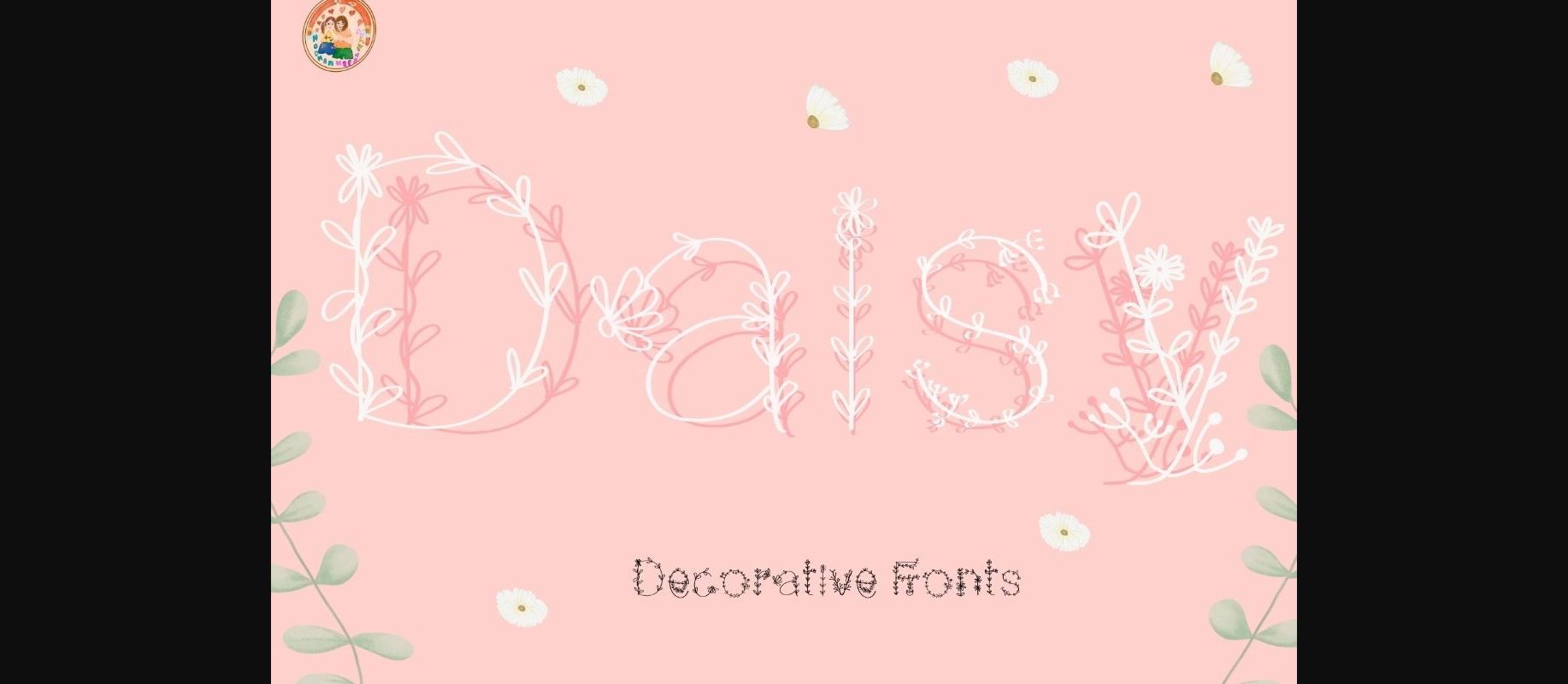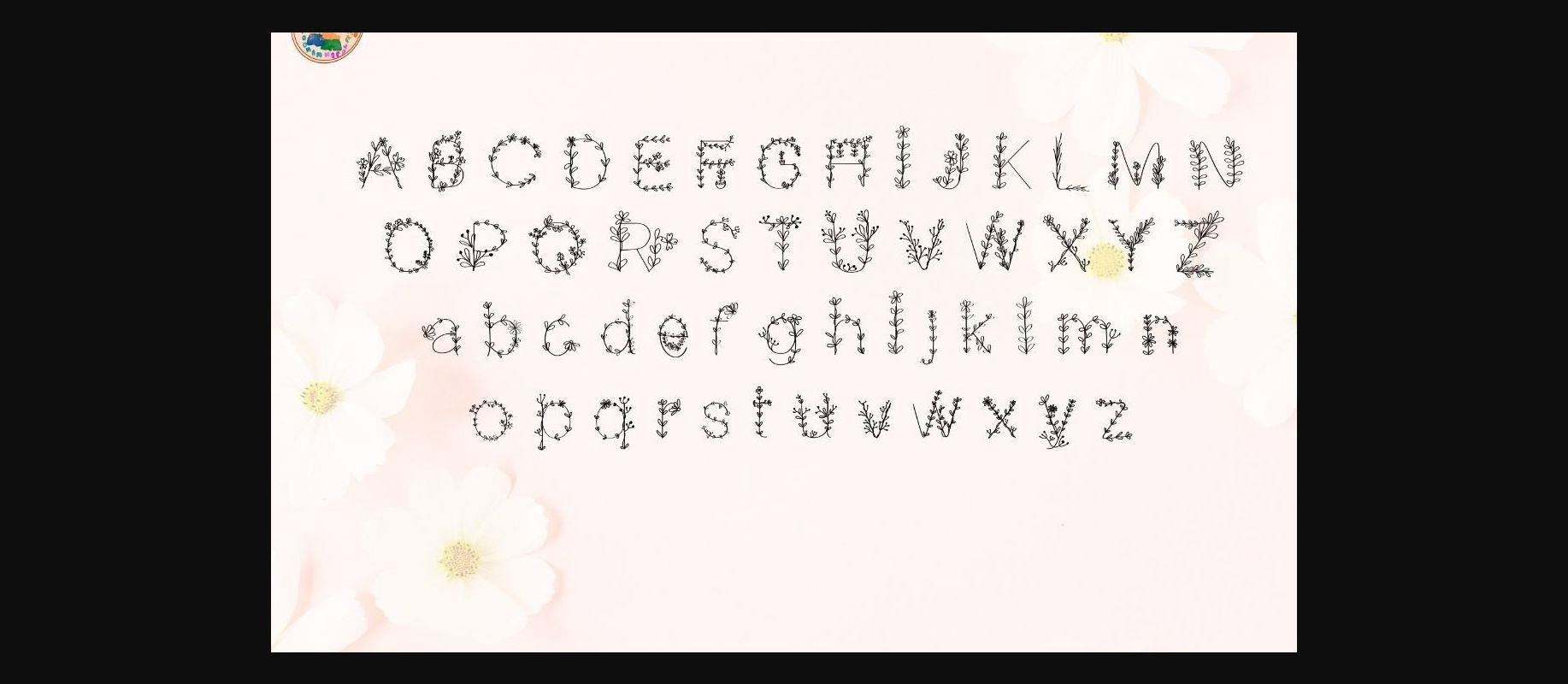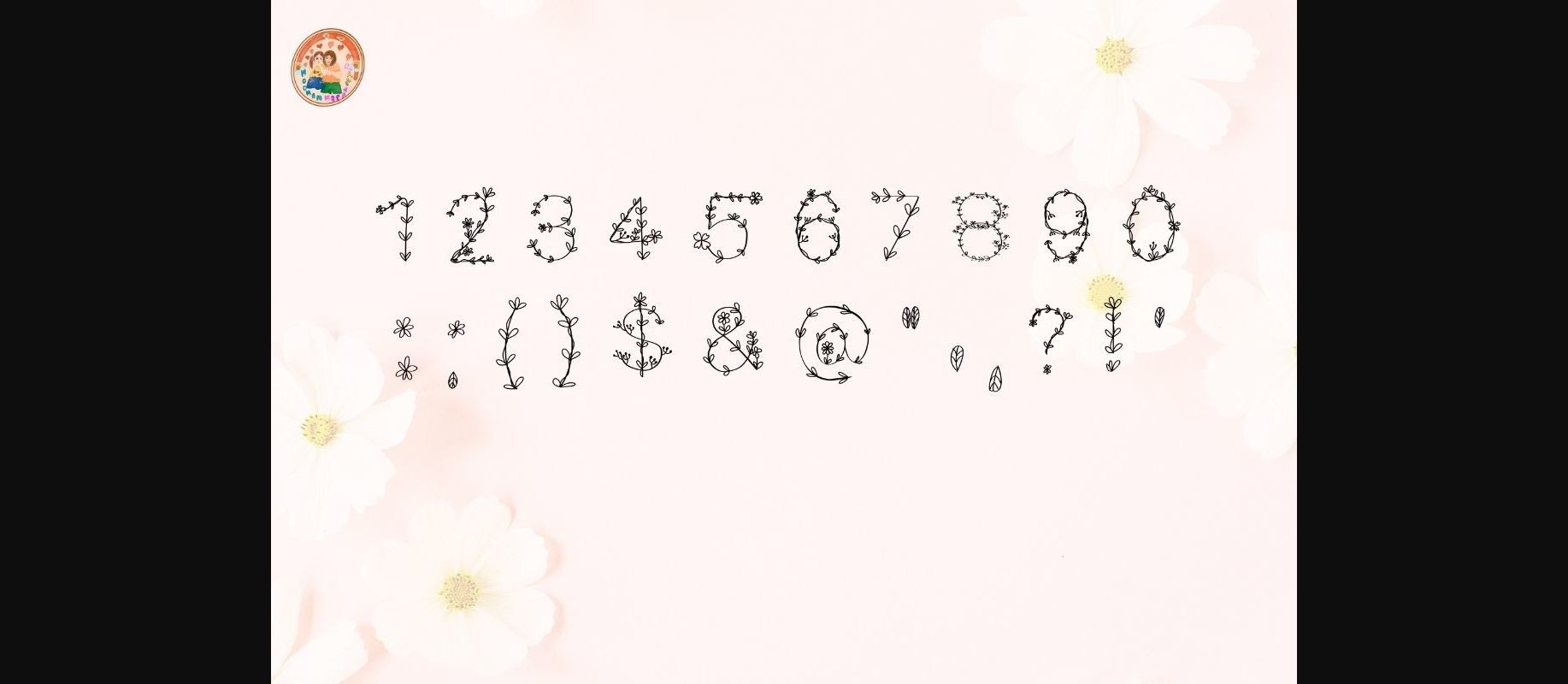
About Daisy Font
Daisy Flower is a delicate and sweet decorative floral font. Fall in love with its natural style and use it to create gorgeous invitations, beautiful stationary art, eye-catching social media posts, and cute greeting cards. Add this beautiful font to each of your creative ideas, and notice how it makes them stand out.